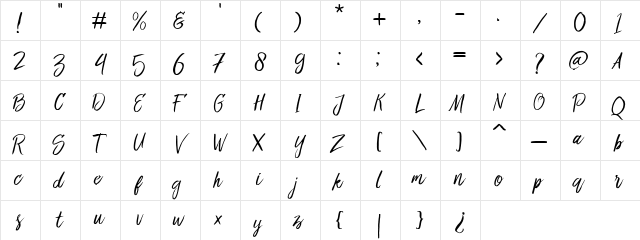
Bringshoot Regular Free Font
Bringshoot Regular
Foundry: Half Moon Design
Design Context for Bringshoot
Bringshoot is a composed and adaptable typeface that performs quietly and consistently across a wide range of design contexts.